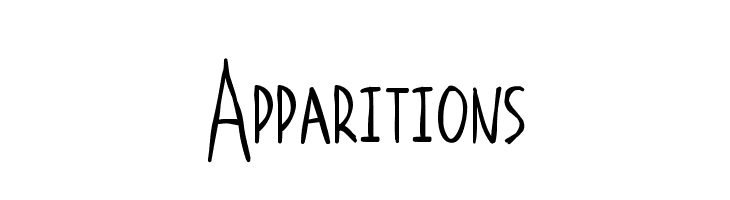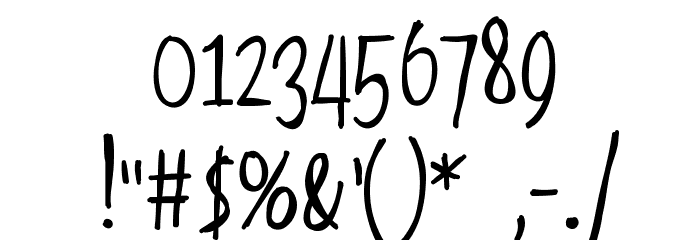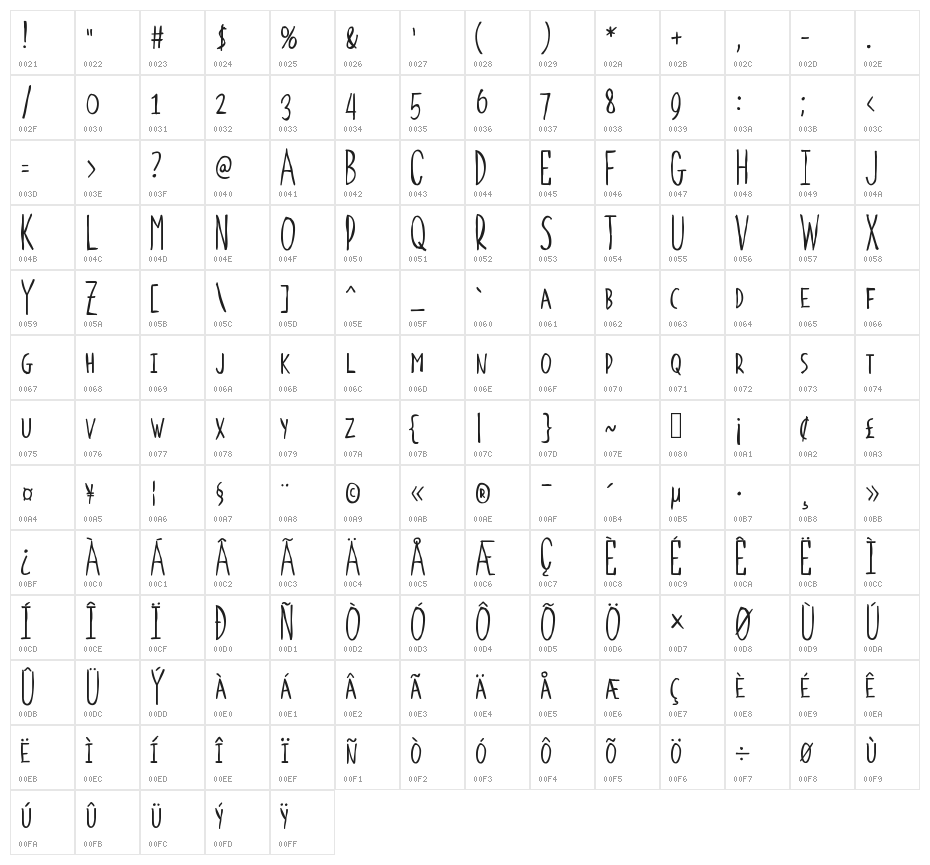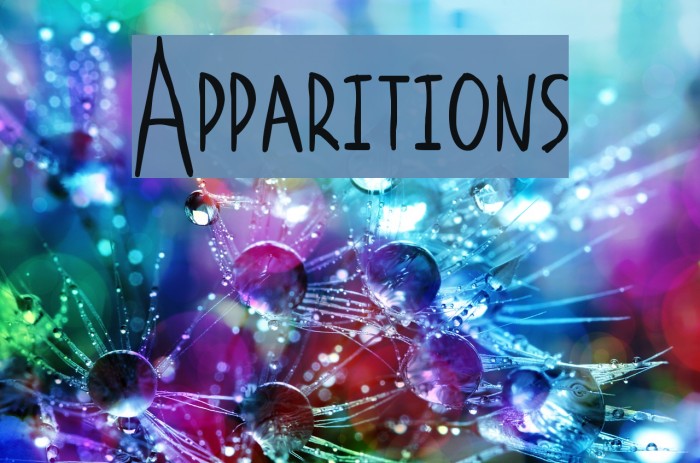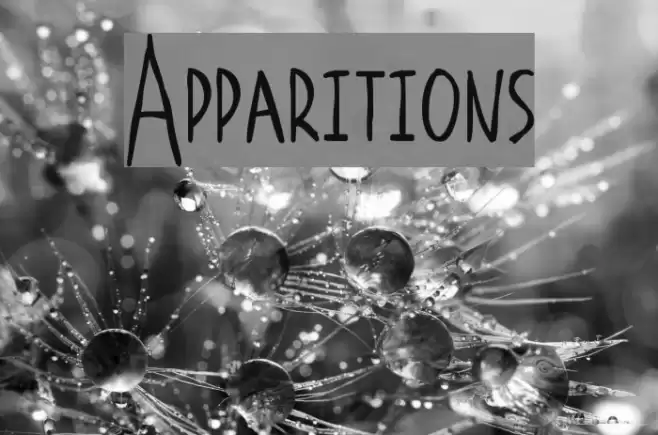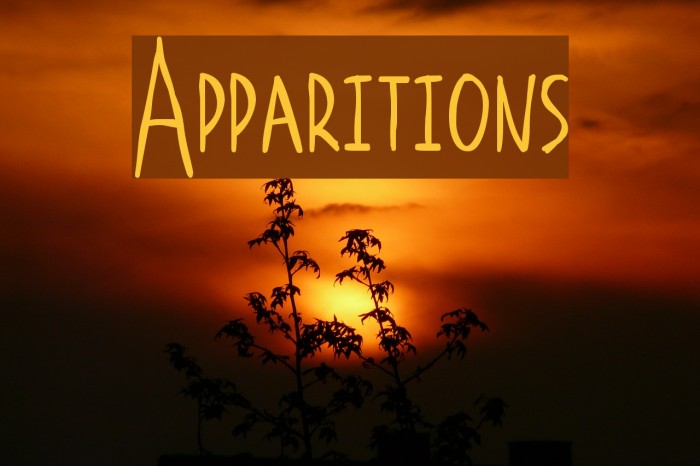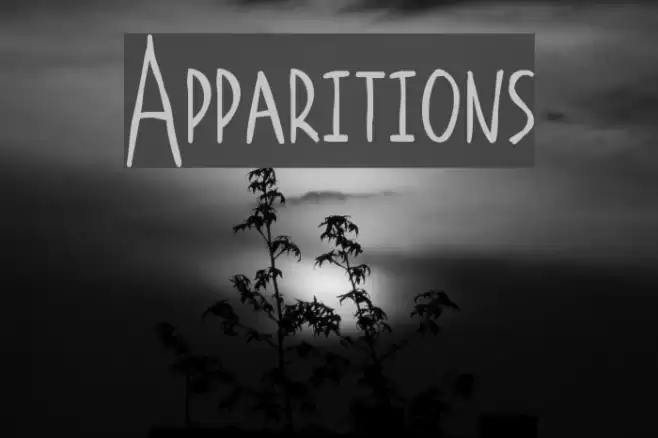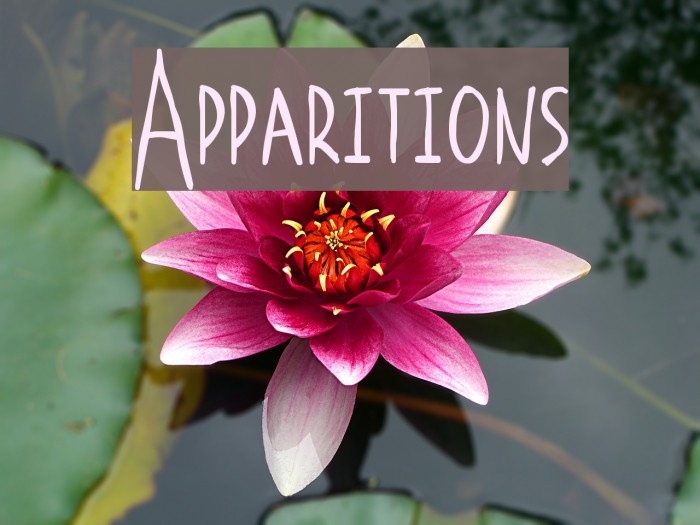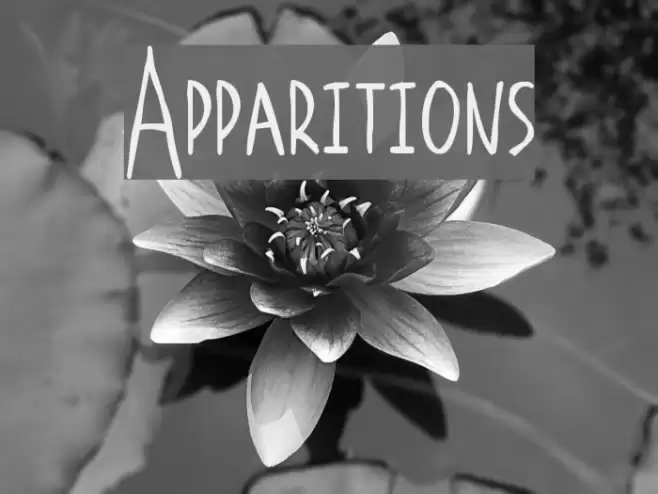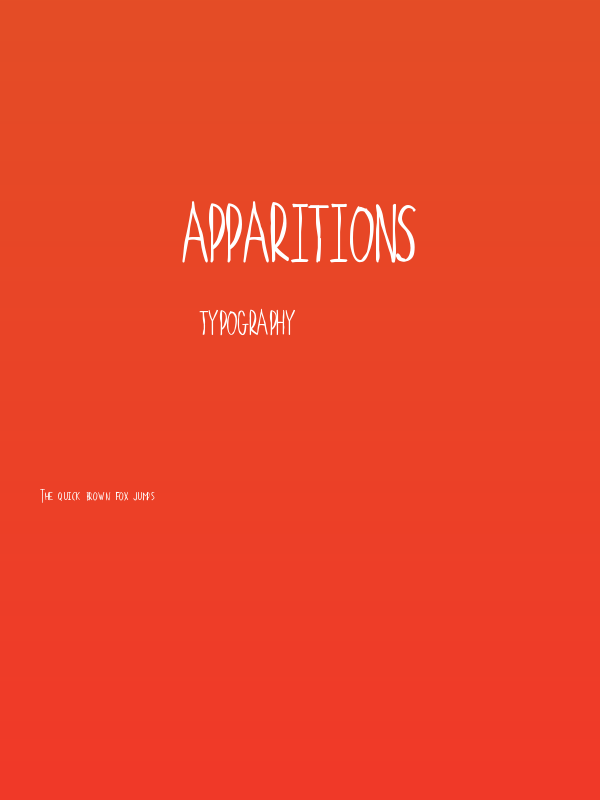
Apparitions Font
Apparitions Description
This font features a playful and quirky handwritten style, characterized by its tall, narrow letters and uneven baseline, giving it a casual and informal appearance. The uppercase letters are elongated with slightly varying stroke widths, while the lowercase letters maintain a consistent height, adding to the whimsical nature. The numbers and special characters follow the same playful design, making the font versatile for creative projects. Its unique style is suitable for designs that aim to convey a sense of fun and individuality.
| Proposed Projects | Ideal for children's book covers, greeting cards, playful branding, and creative posters. |